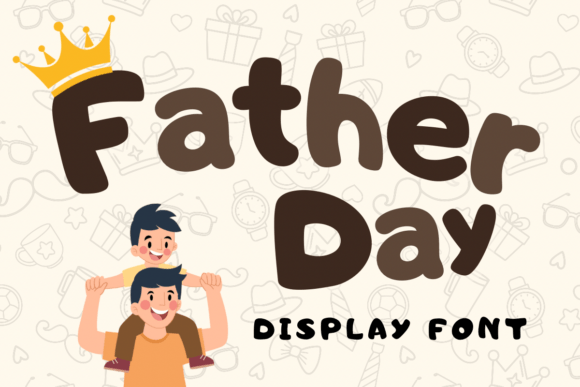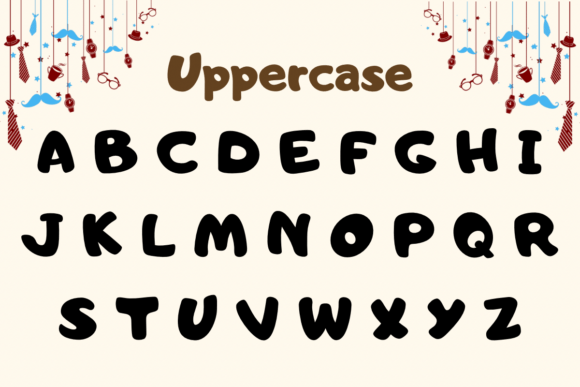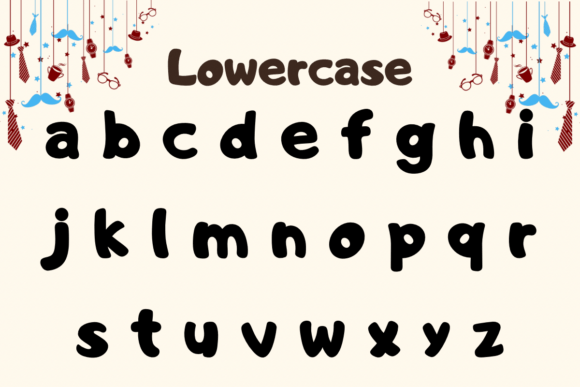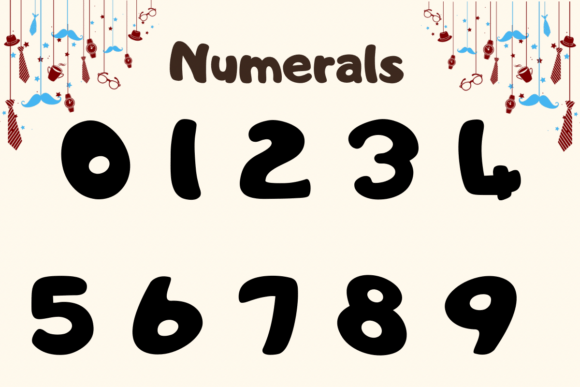
Father Day Font
About the Father Day Font
The wait is over! The incredible Father Day Font is now available for your design toolkit. Father Day is a playful and heartwarming display font crafted to celebrate dad-themed designs with charm and character. With its chunky curves and friendly look, this font is perfect for Father’s Day cards, family event posters, kids’ projects, and anything that needs a dose of wholesome fun and bold personality.
Father Day Font’s bold, friendly style excels in headlines, short slogans, and logos for brands targeting families or children. It works exceptionally well on posters, greeting cards, and packaging where a playful yet legible display font is needed. However, its chunky design makes it unsuitable for body text or UI elements requiring high readability at smaller sizes. Avoid using it for long paragraphs or intricate designs.
Consider pairing Father Day Font with a clean sans-serif like Open Sans for body copy, creating a strong contrast. Alternatively, a classic serif like Garamond adds sophistication and balances the playful energy. For a more modern feel, pair it with a geometric sans-serif such as Montserrat.
The overall personality is cheerful and approachable, making it ideal for projects that communicate warmth, joy, and family values. Avoid using it for serious or corporate branding where a more refined aesthetic is necessary.